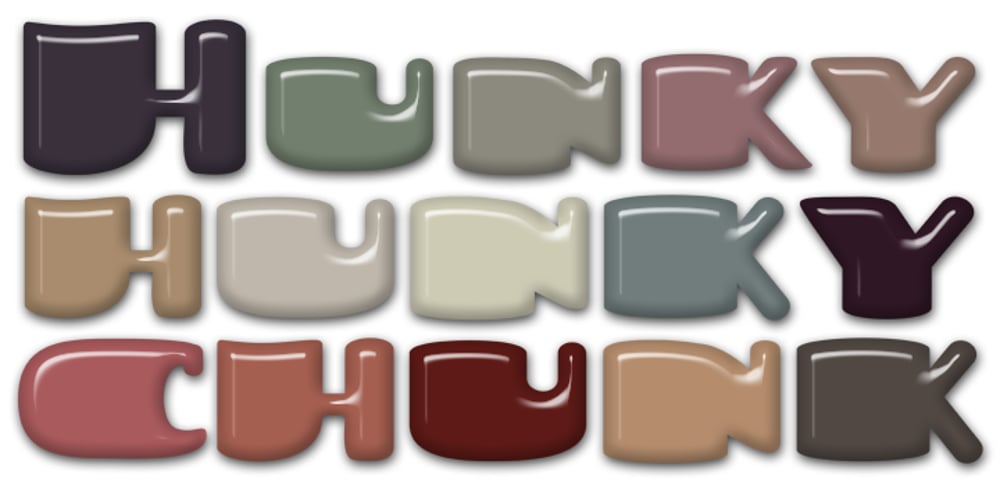
Hunky Chunk Font Family was designed by Randy Harris and published by Just My Type. Hunky Chunk contains 1 styles and family package options. Way back in the 1990s, the fatter the fast food generation got, the more condensed letters became. I figured when the taste in fonts started to mirror the contemporary bodily norm, Hunky Chunk should be there. Here it is.